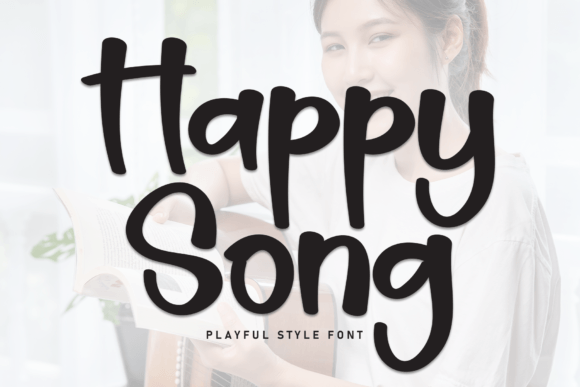
The Perfect Melody for Your Design
Have you ever been working on a project and suddenly, a spark of creativity strikes? You envision the perfect font, one that captures the essence of your design and makes it truly special. That’s exactly what happened when designers discovered the Happy Song Font – a sweet and friendly handwritten font that adds a personal touch to any project.
With its natural and unique style, the Happy Song Font is incredibly versatile, making it a valuable asset for designers. Whether you’re working on a children’s book, a greeting card, or a social media campaign, this font is sure to bring a smile to your audience’s face. Its friendly demeanor makes it perfect for conveying a sense of approachability and warmth, making it a must-have for designers looking to create engaging and memorable designs.
Key Features of Happy Song Font
- Font Family: Happy Song Font comes in two font families – Regular and Bold. The Regular font family includes the following weights: 300, 400, 500, 600, 700.
- Character Set: The font includes a comprehensive set of characters, including uppercase and lowercase letters, numbers, punctuation marks, and special characters, making it suitable for a wide range of applications.
- Unique Characteristics: The Happy Song Font has a distinctive, playful, and modern design, making it ideal for use in creative projects, such as music, art, and entertainment-related applications.
Happy Song Font Review
I recently had the chance to work with the Happy Song Font, and I must say it’s a unique addition to any design project. Here’s what I think:
- The font’s playful, handwritten feel is perfect for creating a lighthearted and approachable atmosphere in your designs.
- The font is highly customizable, allowing you to adjust the size, color, and style to fit your project’s needs.
- The Happy Song Font is great for use in titles, headings, and other emphasis elements, where its quirky feel can really shine.
- The font may not be suitable for body text, as its irregular spacing and letterforms can be difficult to read in large blocks of text.
- The font’s cursive feel can make it challenging to pair with other fonts, so you may need to be creative when selecting a complementary font.
- While the font is highly customizable, some users may find the options overwhelming or difficult to navigate.
Overall, the Happy Song Font is a great choice for designers looking to add a touch of whimsy to their projects. While it may not be suitable for all applications, its unique feel and high level of customization make it a valuable addition to any design toolbox.
Tips for Getting the Most Out of Happy Song Font
Happy Song Font is a playful, cursive font that’s perfect for creating eye-catching designs. Here are some tips for getting the most out of it:
- Use it for titles and headings to add a touch of whimsy to your designs.
- Combine it with bold or sans-serif fonts for a striking contrast.
- Experiment with different font sizes and colors to create a unique visual effect.
Happy Song Font is a versatile font that can be used in a variety of contexts, including:
- Wedding invitations and decorations.
- Children’s birthday parties and